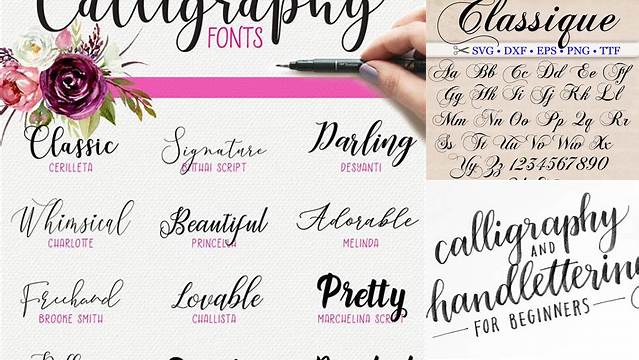
Calligraphy Fonts: Copy & Paste Guide
Hey there, font fanatics! Ever wanted to add a touch of elegance and sophistication to your digital world? Well, you're in luck! We're diving headfirst into the beautiful world of calligraphy writing fonts and how you can easily copy and paste them to elevate your projects. Forget boring, basic fonts – we're talking about turning your text into stunning visual art. Get ready to transform your social media posts, presentations, and even your everyday emails with these gorgeous letterforms. This guide will be your ultimate companion, covering everything from finding the perfect fonts to mastering the art of copying and pasting them seamlessly. So, buckle up, buttercups, and let's get started on this creative journey!
H2: What Exactly Are Calligraphy Writing Fonts? A Deep Dive
Alright, let's get down to the nitty-gritty. What exactly are calligraphy writing fonts? Think of them as digital representations of the beautiful, flowing strokes created by skilled calligraphers using pens, brushes, and ink. Unlike regular fonts, which often have a more uniform and rigid structure, calligraphy fonts aim to mimic the natural, hand-drawn look of calligraphy. This means you'll see variations in stroke thickness, elegant curves, and a sense of organic movement that's simply impossible to achieve with a standard font. The beauty of these fonts lies in their ability to add a personal touch to your projects. They evoke feelings of sophistication, artistry, and a touch of vintage charm. From wedding invitations to logo designs, calligraphy fonts can make a significant impact. These fonts come in a variety of styles, some echoing the traditional elegance of formal scripts, while others embrace a more modern, playful aesthetic. Some fonts might feature elaborate flourishes and swashes, while others lean towards a cleaner, more minimalist design. It's this diversity that makes calligraphy writing fonts so versatile and appealing. So, when you're on the hunt for the perfect font, consider the overall mood and message you want to convey. Do you want a classic, romantic feel or something more contemporary and edgy? The right font will speak volumes about your brand or personal style.
H2: Finding the Best Calligraphy Fonts for Your Projects
Now, let's talk about the treasure hunt: where do you find these amazing calligraphy writing fonts? Fortunately, the internet is a treasure trove of options, both free and premium. One of the best places to start is Google Fonts. They offer a fantastic selection of free, open-source calligraphy fonts that are perfect for personal and commercial use. You can browse their collection, filter by style (like 'handwriting' or 'script'), and preview how the fonts look with your own text. Then, websites such as Font Squirrel and DaFont are also fantastic resources, offering a wide variety of free calligraphy fonts. Keep in mind that some free fonts may have licensing restrictions, so always read the fine print before using them for commercial projects. If you're looking for more professional-grade fonts with advanced features and extensive character sets, you'll want to explore premium font foundries and marketplaces. Websites like Creative Market, MyFonts, and Envato Elements provide a vast selection of high-quality calligraphy writing fonts designed by talented professionals. They often come with a commercial license, allowing you to use them in your business endeavors. When choosing a font, consider its legibility. Although calligraphy fonts are visually appealing, some can be difficult to read, especially in small sizes or lengthy paragraphs. Make sure the font is appropriate for your intended use and that it complements your overall design. Also, check for character support. Does the font include all the special characters, symbols, and ligatures you need? Finally, experiment and have fun! Try out different fonts, play with different sizes and spacing, and see how they interact with your design. The best calligraphy font is one that enhances your message and reflects your personal style.
H2: The Art of Copy and Paste: Calligraphy Fonts in Action
Alright, let's get to the fun part – actually using these gorgeous calligraphy writing fonts! Copying and pasting a calligraphy font is generally a straightforward process, but the exact method can vary slightly depending on the software or platform you're using. The most basic method is to simply select the text you want to format and then choose your desired calligraphy font from the font dropdown menu within your application (like Microsoft Word, Google Docs, or your favorite image editing software). Make sure the font is installed on your system. If you've downloaded a font file (usually in .ttf or .otf format), you'll need to install it on your computer before you can use it. The installation process varies depending on your operating system (Windows, macOS, etc.), but it's generally a matter of double-clicking the font file and following the prompts. Once the font is installed, it will appear in your font list within your applications. Some calligraphy fonts include special characters, such as flourishes, swashes, and alternate letterforms. You may need to use the character map or font management software to access these. Many applications have built-in character maps that allow you to browse and insert special characters. Others, such as Adobe Photoshop and Illustrator, offer advanced features for accessing and using these glyphs. When copying and pasting text from one application to another, make sure that the font is installed on both ends. Otherwise, the text may revert to a default font. If you're working with images or graphics, you may need to rasterize your text after applying the calligraphy font. This will convert the text into a non-editable image, ensuring that it appears correctly on different devices and platforms. Experiment with different sizes, colors, and effects to create stunning visual effects. Calligraphy fonts lend themselves well to creative experimentation, so don't be afraid to explore different possibilities.